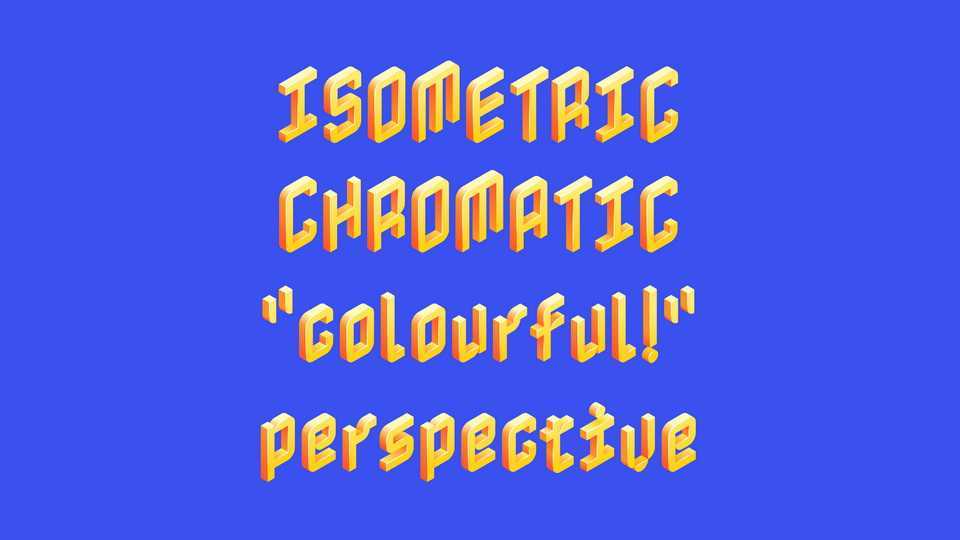
Download Nabla font, an isometric COLRv1 variable typeface with Depth and Highlight axis. Nabla font is perfect for bold headlines and posters, eye-catching typography.
Designer: Just van Rossum